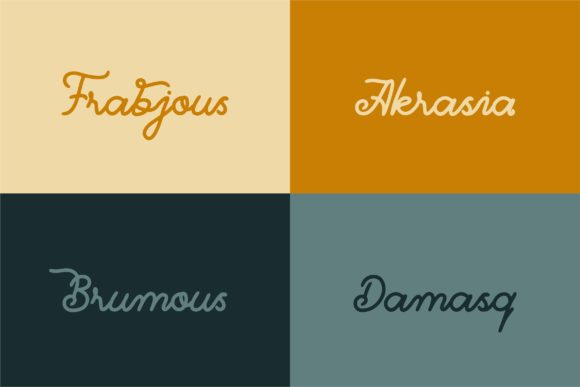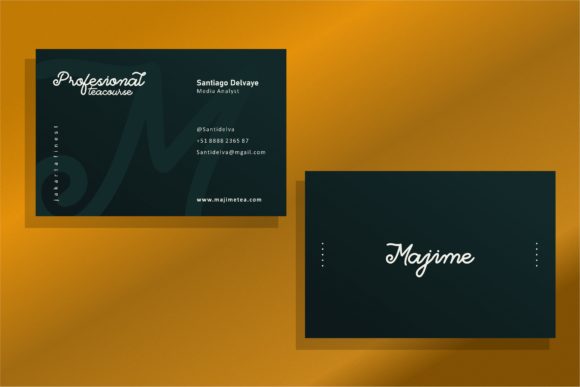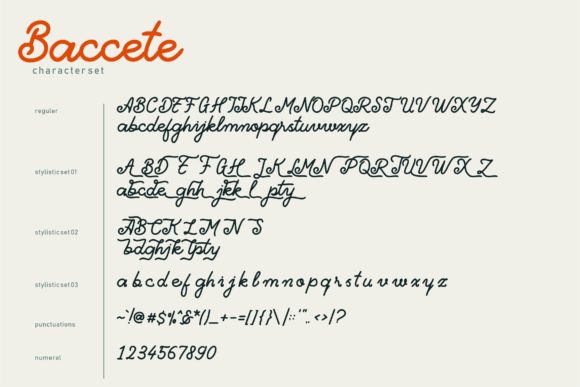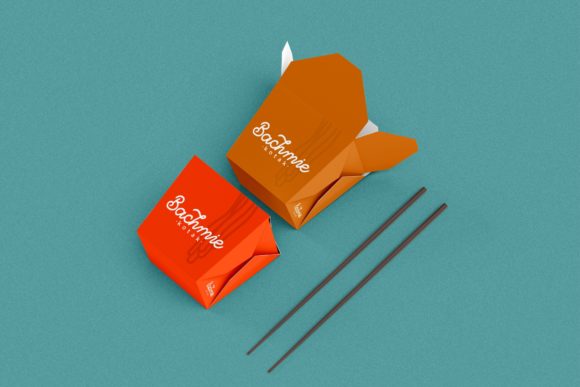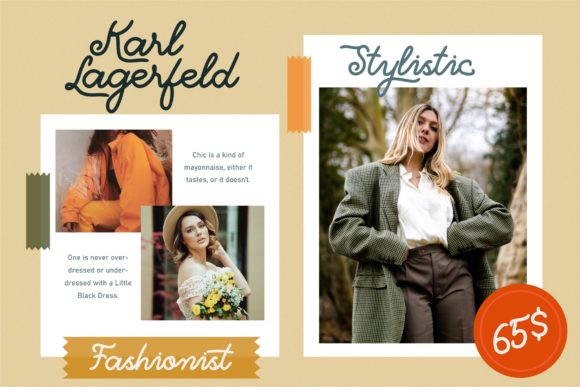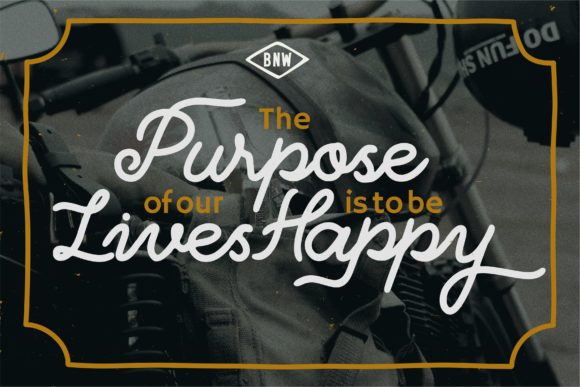
Discover the Timeless Elegance of Baccete Font
There’s nothing quite like the thrill of stumbling upon a new font that sparks creativity and elevates your design game. For me, it’s that moment when the perfect typography brings a project to life, and I’m excited to share with you a gem that’s sure to become a staple in your design arsenal – the Baccete Font.
Baccete Font is a beautifully crafted, vintage-styled script font that exudes sophistication and elegance. Its smooth curves and refined lines make it the perfect choice for fashion branding, editorial designs, and any project where you want to add a touch of timeless sophistication. With its PUA encoding, you’ll have access to all glyphs and swashes, giving you endless possibilities to get creative.
Baccete Font Key Features
- Unique Characteristics: Baccete Font features a modern and clean design, with a focus on legibility and readability, making it suitable for a wide range of digital applications.
Baccete Font Review
I recently had the chance to work with the Baccete font, and I must say it’s an interesting choice. Here are my thoughts on what works well and what doesn’t.
- Unique aesthetic: Baccete has a distinctive look that sets it apart from more traditional fonts.
- High legibility: Despite its unusual shape, Baccete is surprisingly easy to read, especially in larger sizes.
- Good for creative projects: Baccete’s bold, eye-catching design makes it perfect for use in advertising, social media, or other creative projects.
- Not suitable for formal text: Baccete’s bold, playful design may not be the best choice for formal documents, such as academic papers or business reports.
- May be too busy for some designs: Baccete’s intricate details can be overwhelming in certain contexts, so be careful not to overdo it.
- Not ideal for small text sizes: At smaller sizes, Baccete’s fine details can become difficult to read.
Overall, I think Baccete is a great choice for designers looking to add some flair to their projects. Just be mindful of its limitations, and it can be a fantastic addition to your font library.
Tips for Getting the Most Out of Baccete
1. Use Baccete for headings and titles to add a touch of elegance.
2. Pair Baccete with other sans-serif fonts for a clean and modern look.
3. Experiment with different font sizes and colors to create visual interest.
Baccete is ideal for:
1. Branding and logos.
2. Marketing materials and advertisements.
3. Digital products and e-books.
Alternatives to Baccete Font
Baccete Font is a sans-serif typeface known for its clean and modern design. Here are a few alternatives for designers:
Montserrat is a popular sans-serif font designed by Julieta Ulanovsky. It is ideal for use in digital media, such as websites and mobile apps, due to its versatility and legibility. Montserrat is similar to Baccete Font in its modern and clean aesthetic, but it has a more geometric feel and is better suited for body text.
Comparison to Baccete Font: Montserrat has a more geometric feel and is more suitable for body text, while Baccete Font is more suitable for headlines.
Open Sans is a sans-serif font designed by Steve Matteson. It is highly legible and versatile, making it suitable for a wide range of applications, from digital media to print materials. Open Sans is similar to Baccete Font in its clean and modern design, but it has a more rounded feel and is better suited for body text.
Comparison to Baccete Font: Open Sans has a more rounded feel and is more suitable for body text, while Baccete Font is more suitable for headlines.
Lato is a sans-serif font designed by Łukasz Dziedzic. It is highly legible and has a modern feel, making it suitable for use in digital media and print materials. Lato is similar to Baccete Font in its clean and modern design, but it has a more condensed feel and is better suited for body text.
Yes, the Baccete Font is suitable for logos and branding due to its clean and modern design. However, it’s recommended to test the font in different contexts and sizes to ensure it meets your specific design requirements and brand identity.